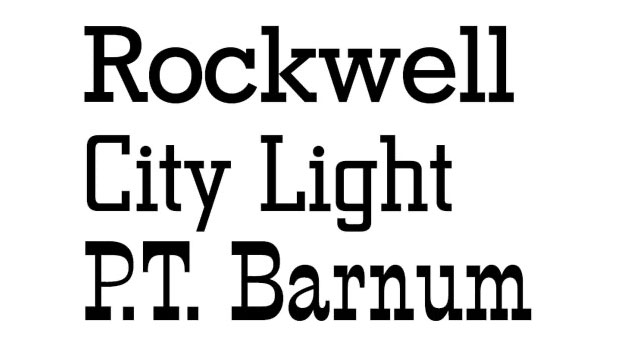
Antique Gothic Grotesque: Deciphering the Typeface Name Game
The previous installment of this column opened the can of worms known as type classification. It’s the process of assigning names to various kinds of type. The question of whether a face should be called an italic or an oblique is just the tip of the iceberg.
For example, what label would you apply to the following face?
Most of you would probably say “gothic.” But that will get you into an argument with those who reserve that name for faces that look like this:
But in fact, that first sample, designed in 1932 by Morris Fuller Benton, is named American Text. To the 21st-century eye, it looks about as American as lederhosen, and it probably wouldn’t be your first choice for text, either.
Knowing how typefaces are named and categorized is a very practical matter. First, it makes communications clearer among designers, clients, typesetters, and editors. Second, which category a typeface belongs to determines how you set it. Which point sizes you use, which leading and measure you select, and which tracking you apply to your type varies according to whether the face is an old-style or a modern, a geometric of humanist sans serif. These are topics for future columns.
The Face of Darkness
Types resembling American Text were used by Gutenberg for his first movable type, and they copied popular contemporary writing styles. The Italians of the period called this style textura, which refers to its woven appearance and derives from the same Latin word that gave us the term text. Thus Mr. Benton’s reference.
That said, the most common name used in the United States for such types is blackletter, simply because they look so dark on the page. The once-common alternative blackface has been virtually abandoned. The term gothic, though, is still commonly used — particularly in Europe — as is fraktur, which when strictly applied refers to blackletter forms used in Germany. You’ll also see the names Old English and Gothic Antique used from time to time, just to add to the confusion.
Antique would seem to be a good name for a style with such deep historical roots, but that would be too simple. In the early 19th century, British type founder Vincent Figgins introduced a face that had a consistent stroke weight — sometimes called a monoline stroke — but with bulky, brick-like serifs. Figgins called it Antique, an odd choice for a face with no historical precedents.
Faces like the following now go by the common-sense name slab serif. When they were first introduced they were decried as “monstrosities.” Of these three, Rockwell most closely resembles Figgins’ original. P.T. Barnum was originally called French Clarendon.
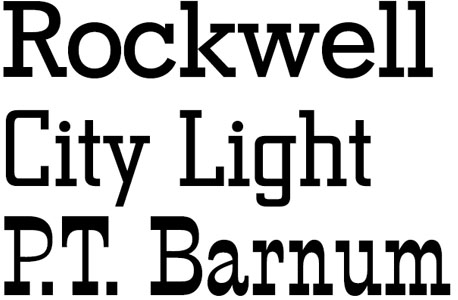
As a name for this new species of types, the label didn’t last. It was replaced by the even screwier name Egyptian, which had been earlier introduced by William Caslon IV in 1816 as a name for the first sans serif typeface on record. (As a name for sans serif faces, this didn’t stick either.) Why Egyptian? Simply because Egypt was the flavor of the month in those days, what with Napoleon’s invasion and archaeological excavations and mummies and all.
When square serifs were added to designs based on traditional text faces, they were eventually called Clarendons, after the first design so executed, in the 1840s. Where that name came from is still anybody’s guess.
Although the serifs of different Clarendons vary in bulk, they share the squared-off shapes of the original.
A further distinction between slab serifs and Clarendons is that in the former, serifs meet character stems at a sharp angle. In Clarendons, they join with a curve and are called bracketed serifs. Those of slab serif faces go by the uncharacteristically sensible name of unbracketed.
In the Clarendon characters on the left, the serifs meet the stems with an arcing shape called a bracket, a feature shared with all old-style faces. The serifs on the Stymie sample on the right are unbracketed.
Caslon’s first sans serif type didn’t generate much interest, but by 1830 the look came into style in a big way. In Britain, William Thorowgood introduced a line of sans serif faces that he labeled Grotesque, a self-effacing name for what was at the time admittedly a weird-looking type. The name stuck for the genre.
Except, that is, in the U.S., where about that same time the Boston Type and Stereotype Foundry introduced a line of sans serif types it decided to call Gothics.
The French, in turn, started calling sans serif faces — ready? — Antiques.
This roundabout itinerary could go on and on, but let’s summarize what we’ve learned by means of another quiz. From the following typeface samples — all identified by their real names — what would you surmise is the meaning of the typographic term antique?
Yes, it’s a rare quiz in which all answers are correct, including, “This is nuts.”
Attempts at Consensus
Various individuals and standards bodies have tried to rationalize the many regional and historical naming trends. In the 21st century, it may still make sense to refer to types based on 15th-century precedents as old style, but is it logical to call types from the 17th century moderns?